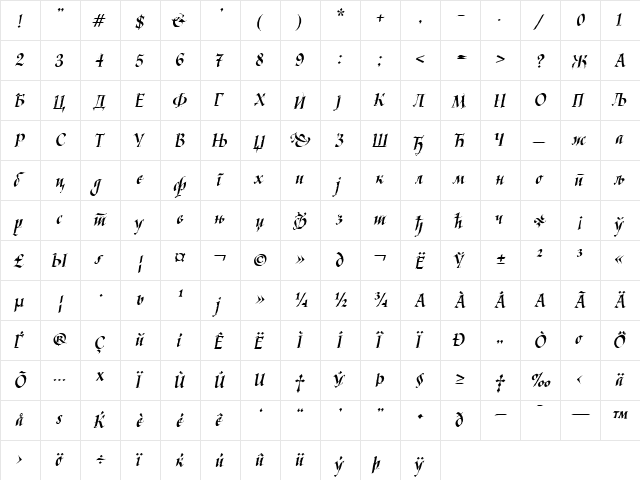
Kaligraf Cyr Regular
| Foundry | Lazar Dimitrijevic |
| Designer | Lazar Dimitrijevic |
Design Context for Kaligraf Cyr Typeface
Kaligraf Cyr is a composed and adaptable typeface that performs quietly and consistently across a wide range of design contexts.